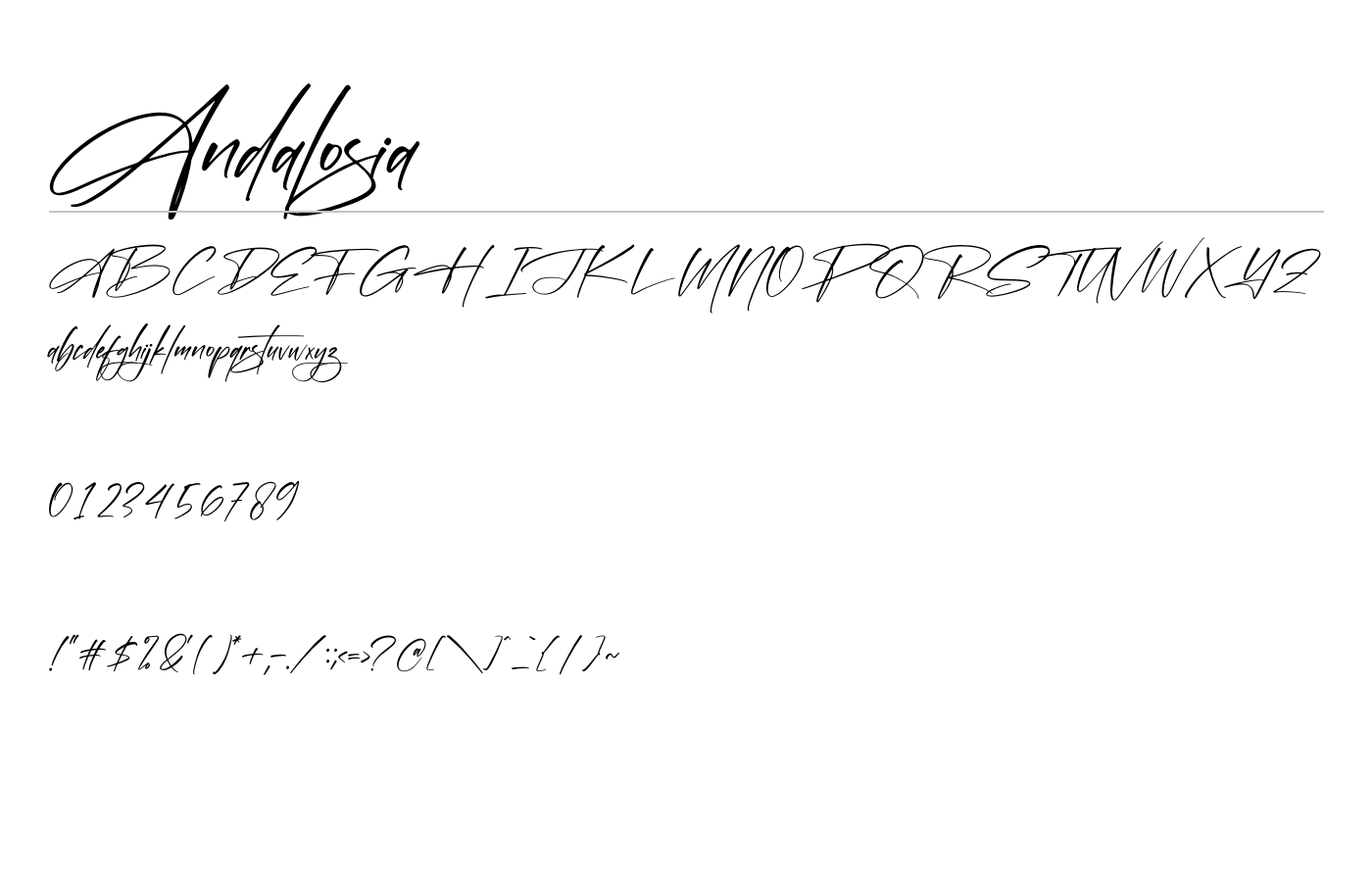
Andalosia is a delicate and elegant script font with a flowing, handwritten style characterized by thin, graceful strokes and expressive, slightly irregular letterforms. Its airy and artistic appearance makes it perfect for creative and feminine branding, invitations, and stylish logos where a personal, sophisticated touch is desired. This font works best in large sizes like headlines or display use, adding a refined, modern charm to any design.
Andalosia Font
About Andalosia Font